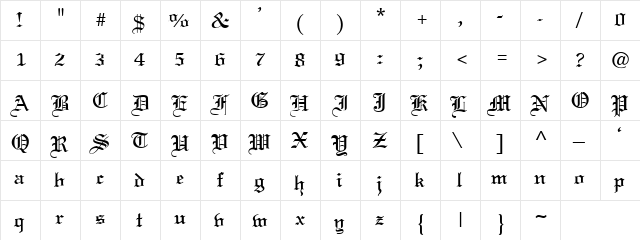
Lavender Smile Regular
Design Context for Lavender Smile Typeface
Lavender Smile is a composed and adaptable typeface that performs quietly and consistently across a wide range of design contexts.
Pro Tip: Pair Lavender Smile with a font of contrasting weight or personality to build a more expressive typographic hierarchy.